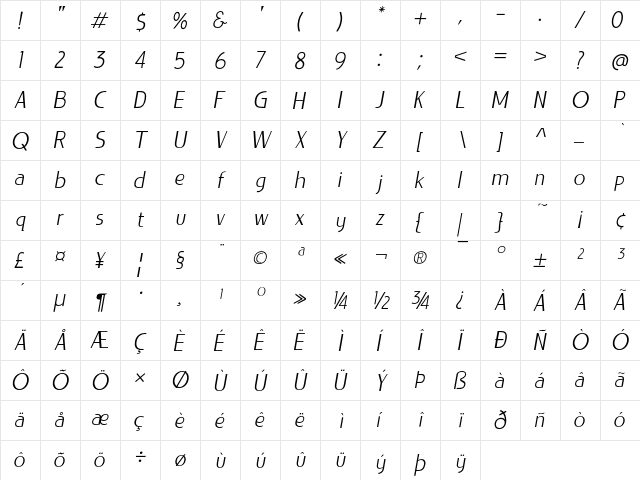
LIEUR Light Italic Font Preview
| Designer | Andi Winarno-Inkstypia |
Design Context for LIEUR Light Typeface
LIEUR Light offers clean, dependable letterforms without strong stylistic allegiance, making it a practical choice for designers who need flexibility. The slanted form adds forward momentum and visual energy. Its slender proportions lend an understated elegance to any composition.